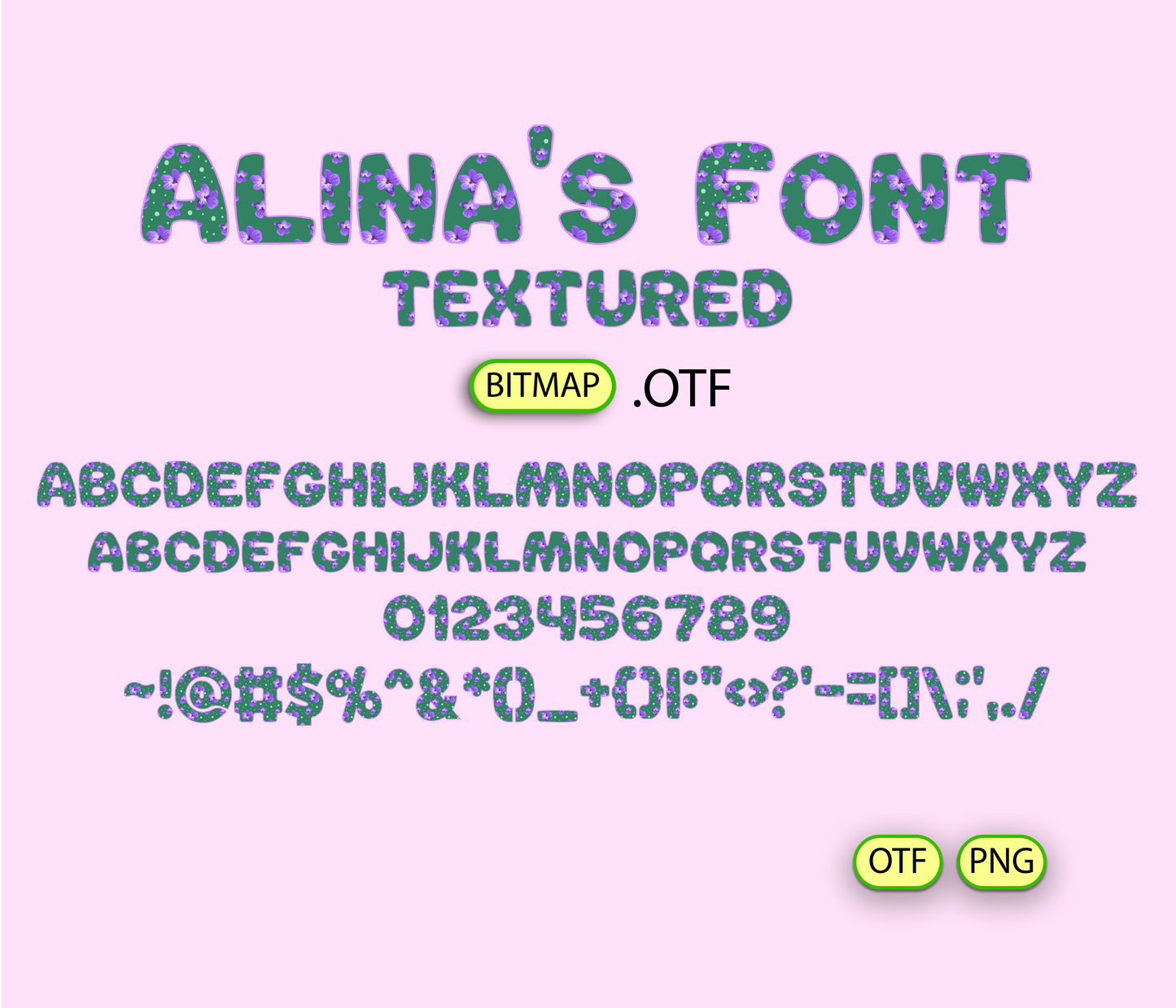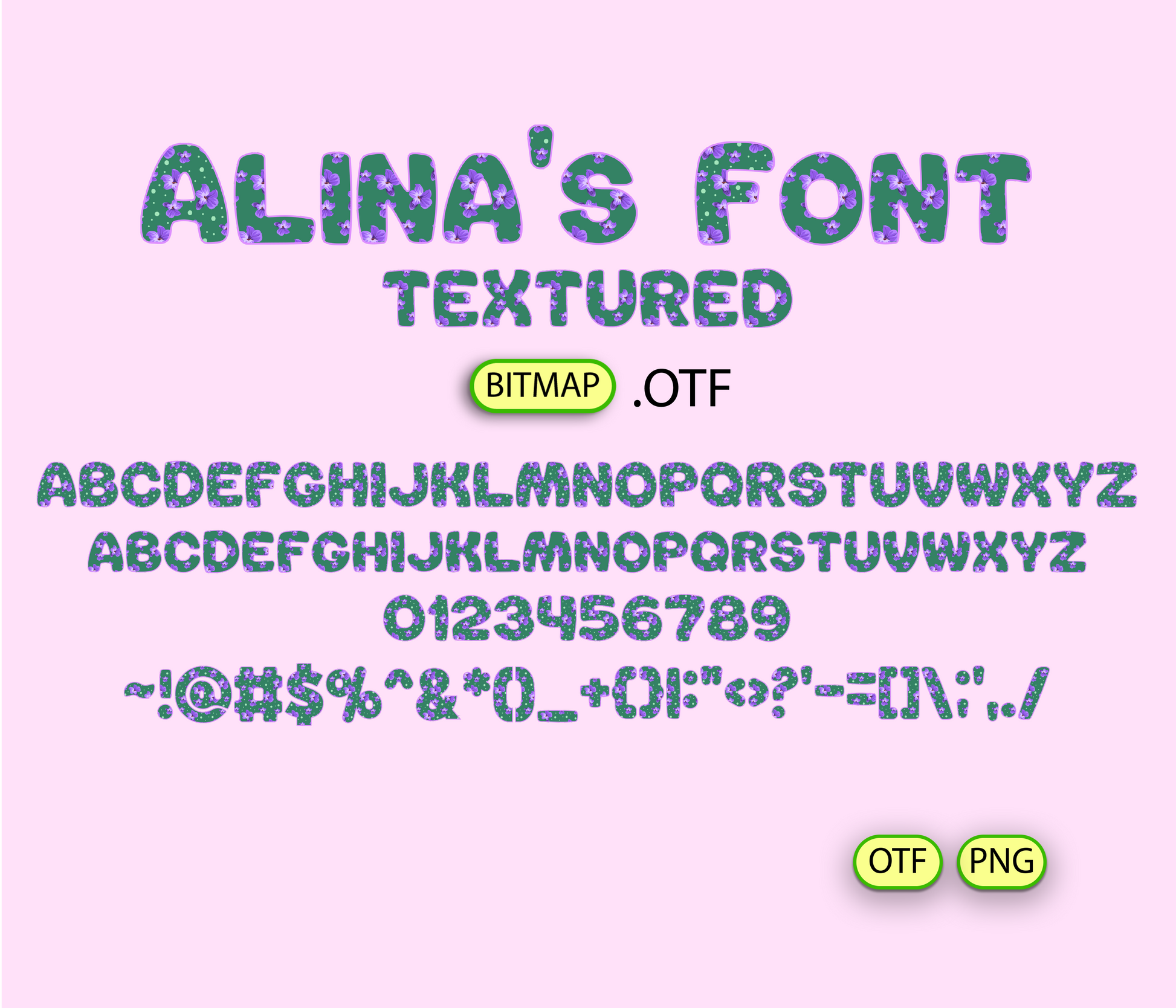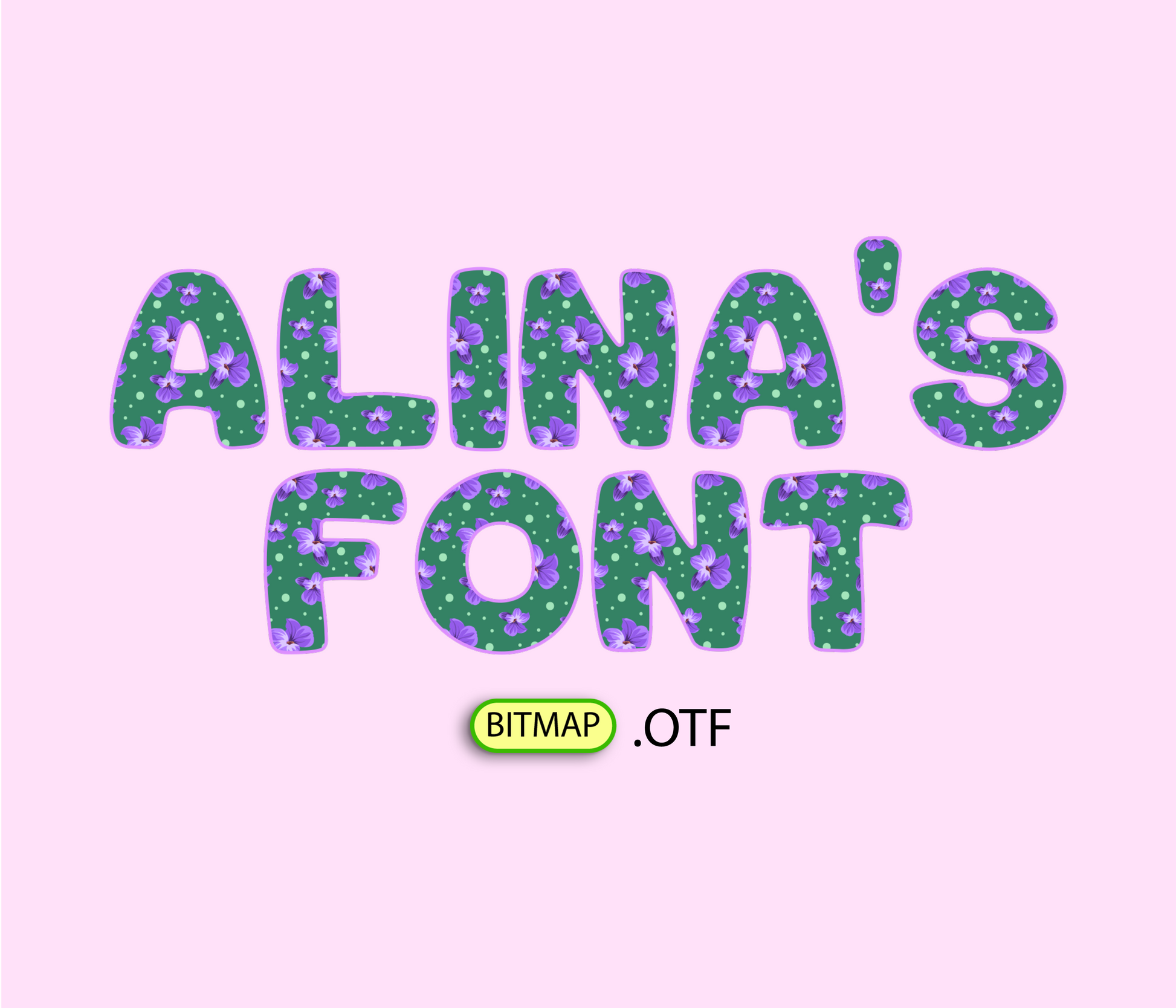
Floral Green Pattern Font
Exploring Nature's Artistry with Floral Fantasy Textured Font
Immerse yourself in the enchanting realm of nature with our Floral Fantasy Textured Font, a bespoke typeface designed to bring the splendor of the natural world into your creative endeavors. This font, adorned with detailed floral patterns and a lively color scheme, stands out as an exceptional choice for a wide array of creative projects.
Perfectly suited for Cricut crafts and print-on-demand products, this botanical-themed font adds a distinctive flair to apparel like t-shirts and tote bags. If you're organizing a garden party or a flower-centric event, this font becomes an essential tool for designing sophisticated cake toppers, alluring birthday invitations, and unforgettable party favors that will captivate any girl or daughter.
Elevate your website design, brand identity, and digital artwork with the intricate and artistic qualities of this textured font. Its adaptability ensures it's a valuable asset in your creative arsenal, suitable for a diverse range of projects.